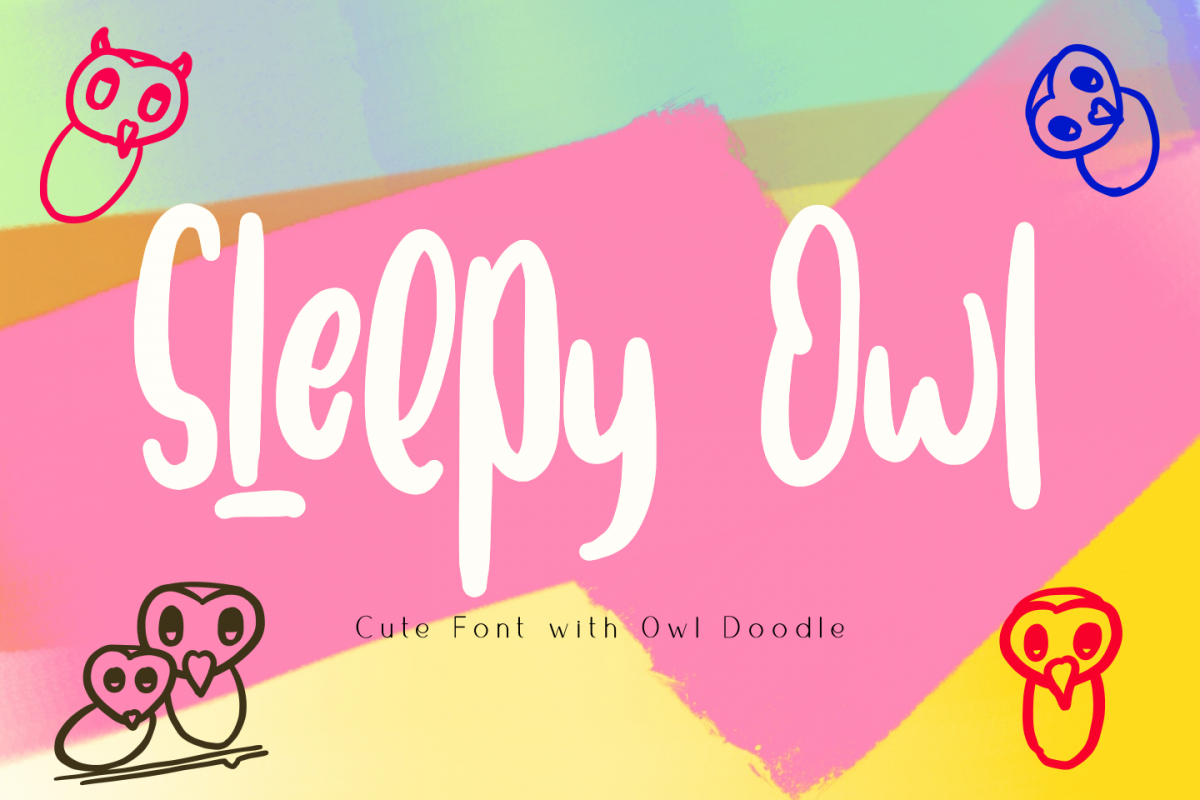
Sleepy Owl Fun Font
Sleepy Owl is a cute display font. use it to make your design cheerful and fun. just combine between Uppercase, lowercase, and all three type alternates.